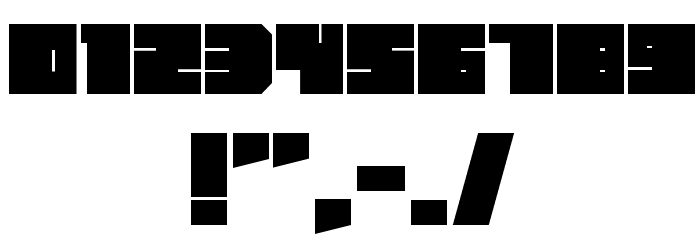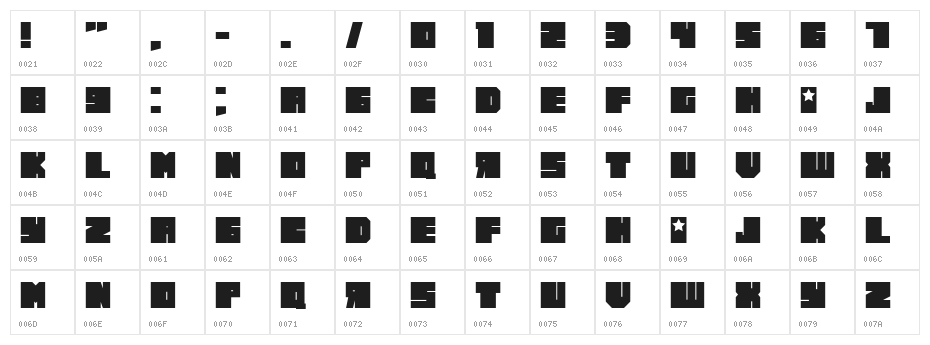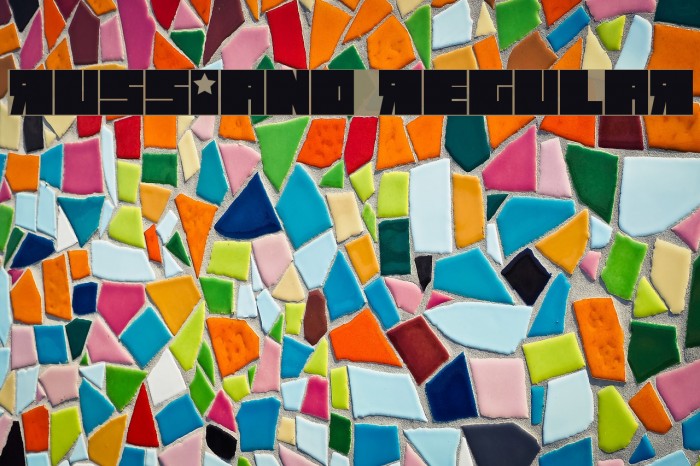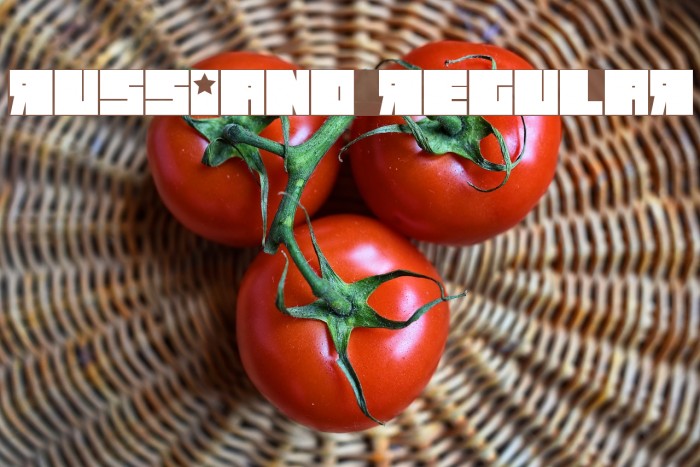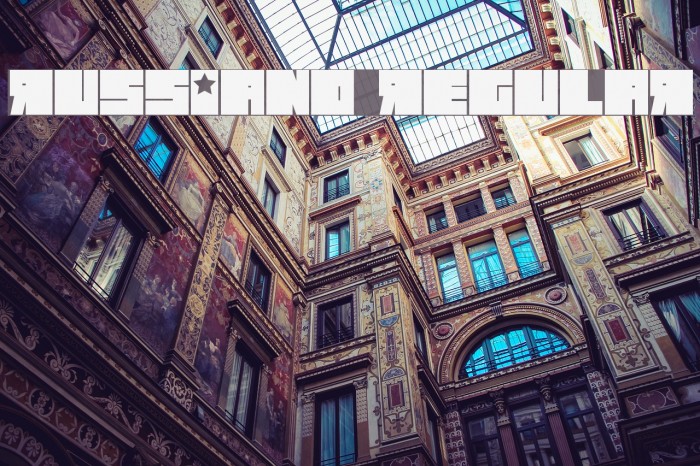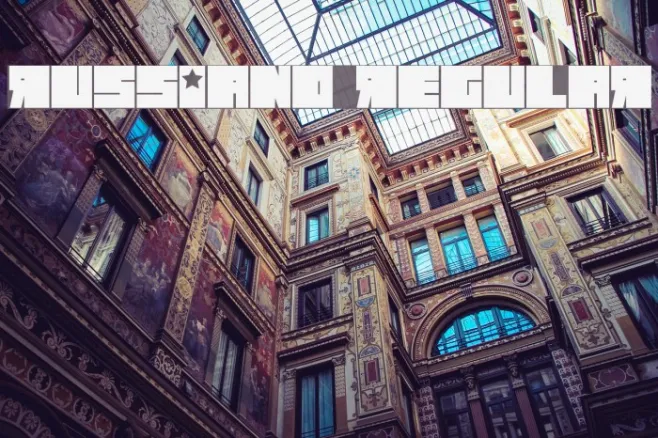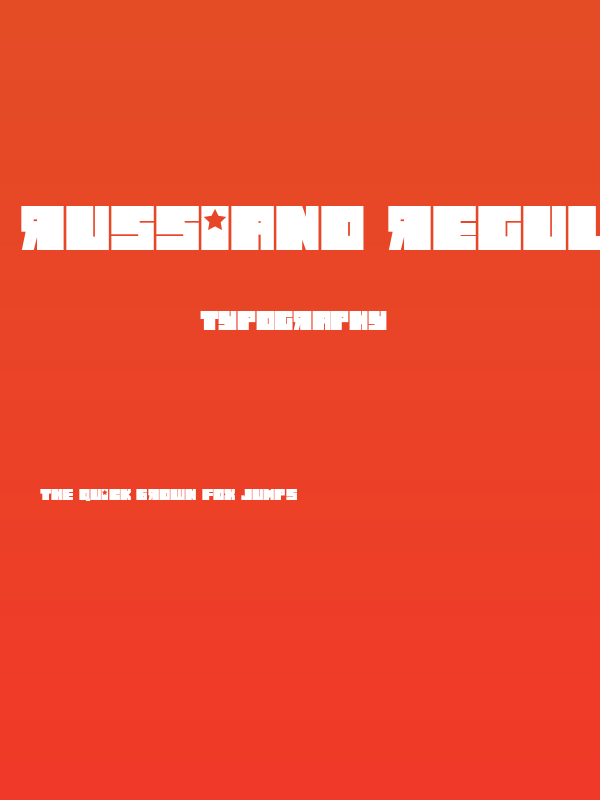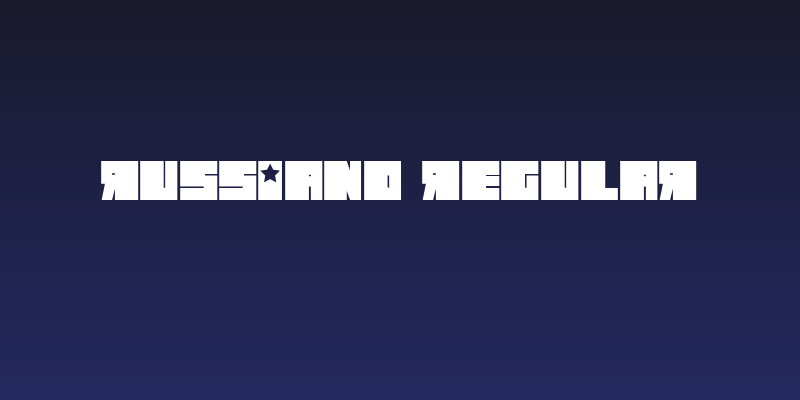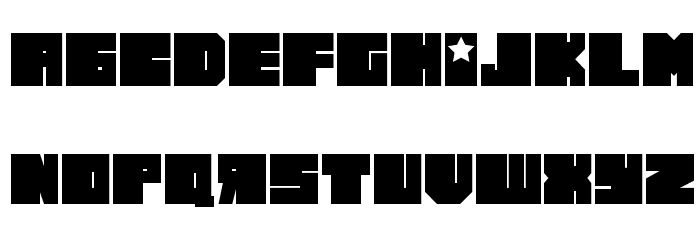
Russiano Regular Font
Russiano Regular Description
This font features a bold, geometric design with a strong, block-like appearance. Each character is constructed with sharp angles and straight lines, giving it a distinctly modern and industrial feel. The uppercase letters are particularly striking, with some characters incorporating unique elements such as stars or additional lines, adding a decorative touch. The lowercase letters maintain the same robust style, ensuring consistency throughout the typeface. Numbers and special characters are equally bold, making them stand out prominently. The overall design is reminiscent of constructivist art, making it ideal for projects that require a strong visual impact.
| Proposed Projects | Ideal for posters, logos, branding, and any design requiring a strong, impactful typeface. |